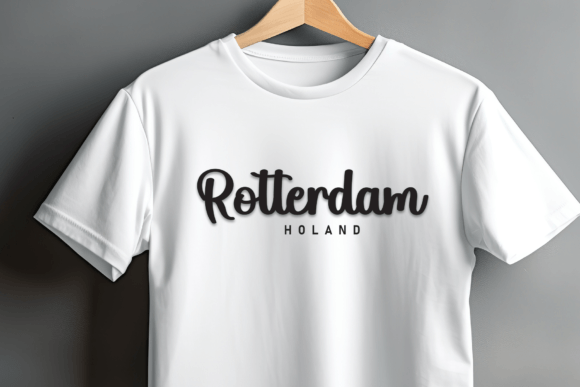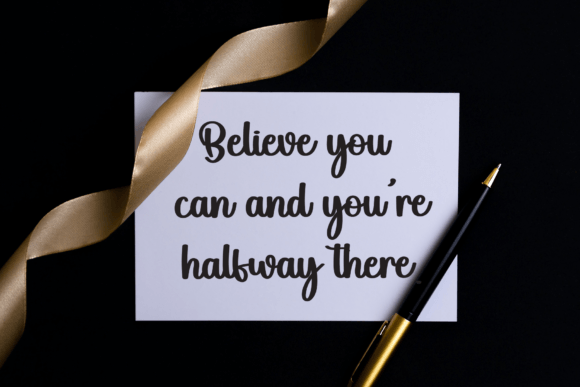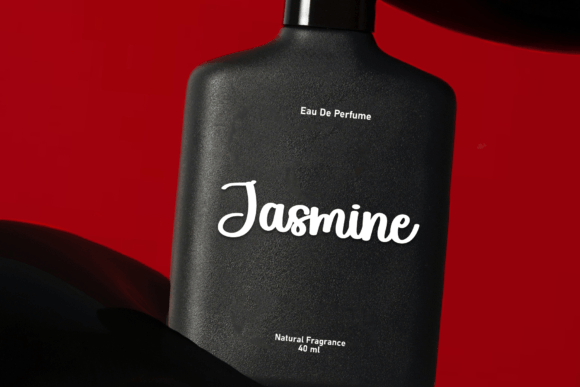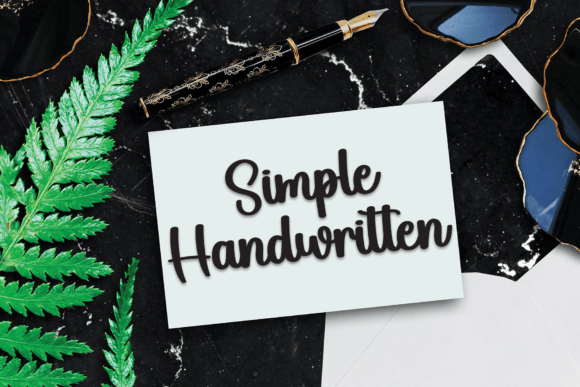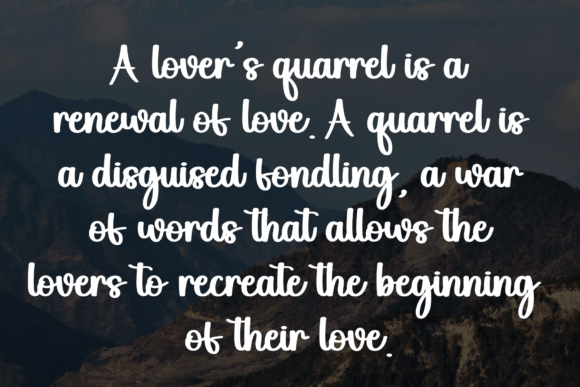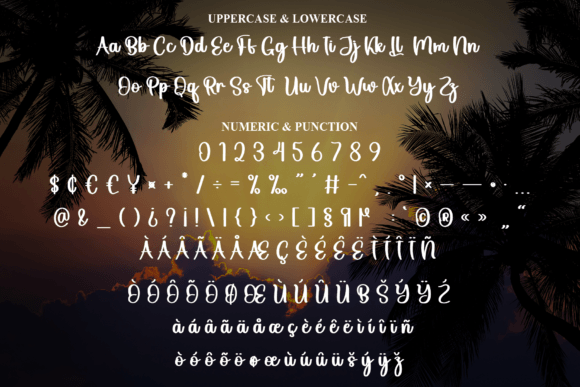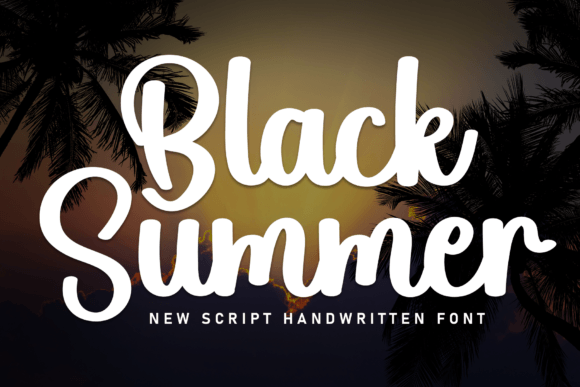
Introducing Black Summer Font: The Sweetest Addition to Your Design Arsenal
Are you on the hunt for a font that embodies the perfect blend of sweetness and friendliness? Look no further than the delightful Black Summer Font! This handmade, display font is sure to captivate your audience with its playful tone and whimsical charm, making it an ideal choice for a variety of design projects.
The Perfect Blend of Whimsy and Elegance
Black Summer Font boasts a unique, handcrafted quality that sets it apart from more traditional fonts. Its delightful, playful essence is perfect for crafting captivating wedding invitations, enchanting cards, or any design project requiring a touch of whimsy. Whether you’re a designer, crafter, or DIY enthusiast, this font is sure to inspire your creativity and add a dash of personality to your work.
With Black Summer Font, the design possibilities are endless! Imagine creating:
- Captivating wedding invitations that set the tone for a magical day
- Enchanting cards that make your loved ones feel special
- Whimsical branding materials that showcase your unique personality
- Playful packaging designs that make your products stand out
- Delightful social media graphics that capture your audience’s attention
What Makes Black Summer Font So Special?
So, what sets Black Summer Font apart from other fonts? Here are just a few of its standout features:
- Handmade with love: Each letter has been carefully crafted to ensure a unique, human touch
- Playful tone: Black Summer Font exudes a sense of fun and playfulness, perfect for designs that require a lighthearted touch
- Whimsical charm: This font is sure to add a dash of magic to your designs
- Versatile: Use it for a variety of design projects, from wedding invitations to social media graphics
Tips for Using Black Summer Font
To get the most out of Black Summer Font, here are a few tips to keep in mind:
- Pair it with contrasting fonts: Combine Black Summer Font with a more traditional font to create visual interest
- Experiment with colors: Try pairing the font with bright, bold colors to amplify its playful tone
- Use it sparingly: While Black Summer Font is perfect for headlines and titles, use it sparingly to avoid overwhelming your design
In conclusion, Black Summer Font is a sweet and charming addition to any designer’s arsenal. Its playful tone, whimsical charm, and handmade quality make it perfect for a variety of design projects. Whether you’re a seasoned designer or a DIY enthusiast, this font is sure to inspire your creativity and add a touch of personality to your work. So why wait? Immerse yourself in the delightful charm of Black Summer Font and discover a world of design possibilities!
Get Ready to Fall in Love with Black Summer Font
Ready to experience the magic of Black Summer Font for yourself? With its endless design possibilities, playful tone, and whimsical charm, it’s the perfect font for anyone looking to add a touch of sweetness and friendliness to their designs. So go ahead, give it a try, and discover why Black Summer Font is the perfect choice for your next design project!